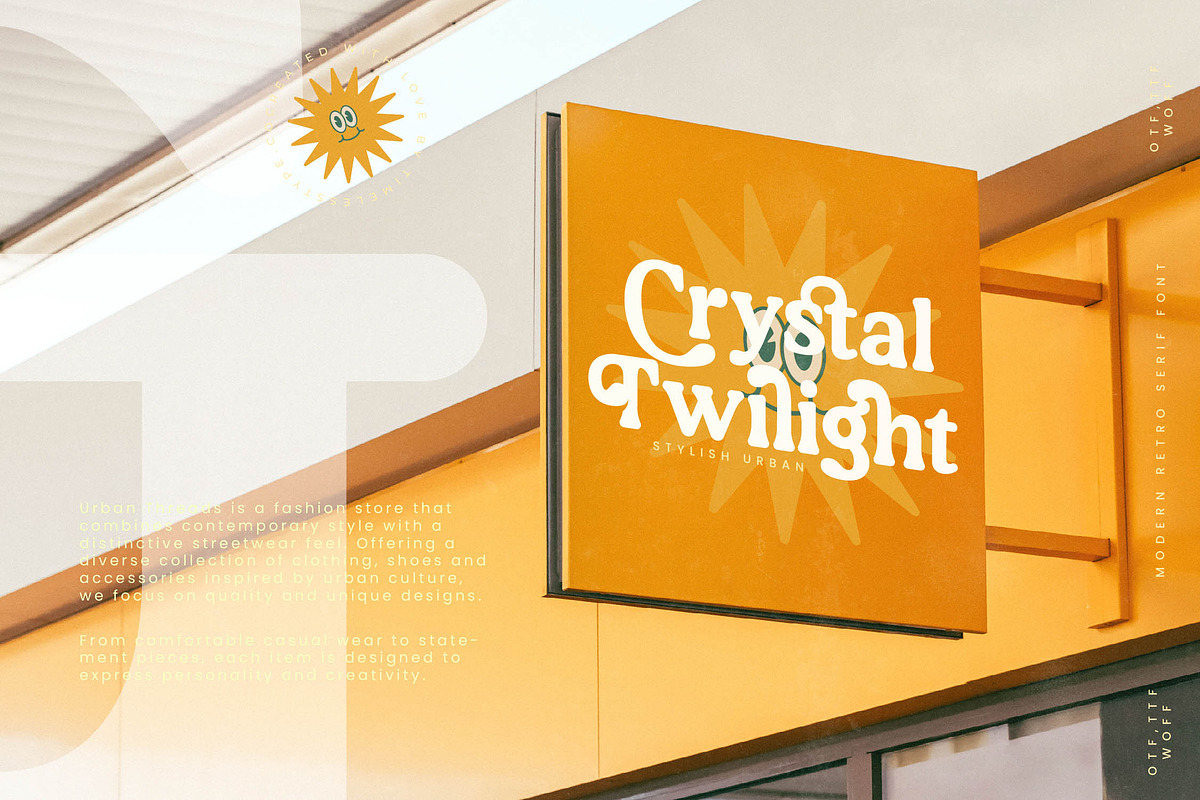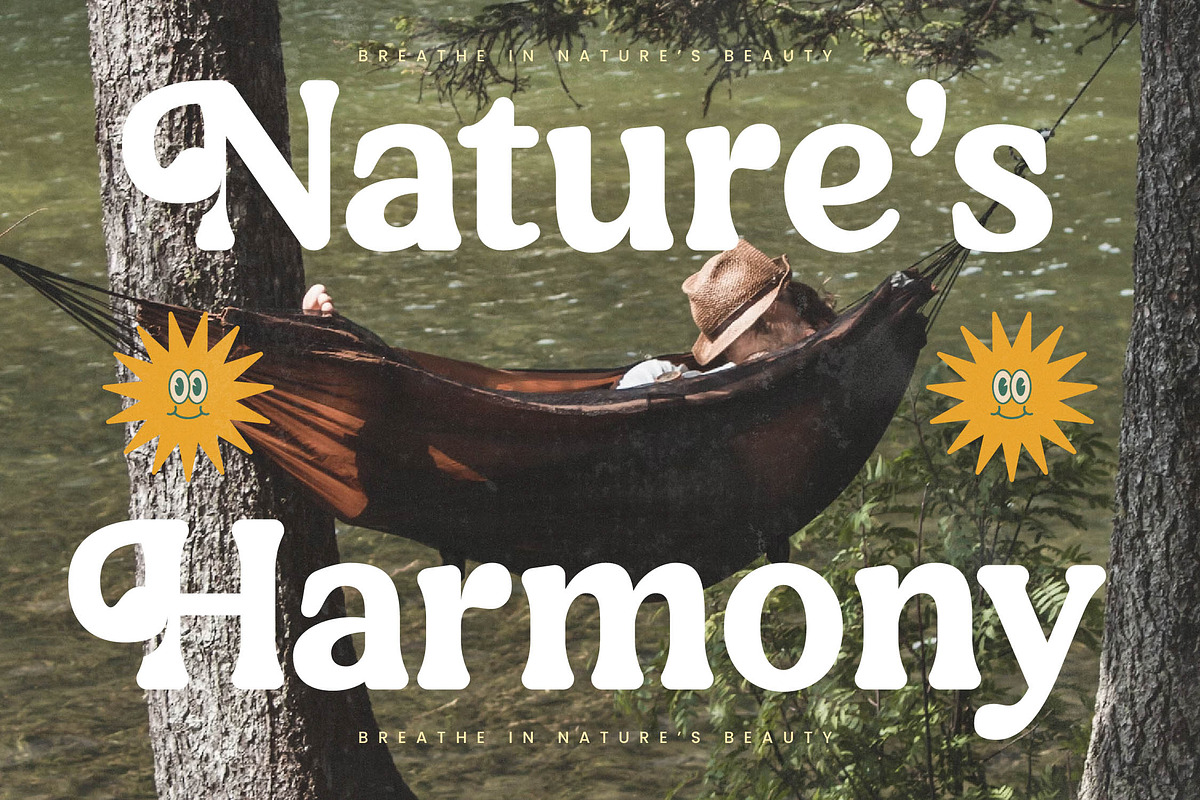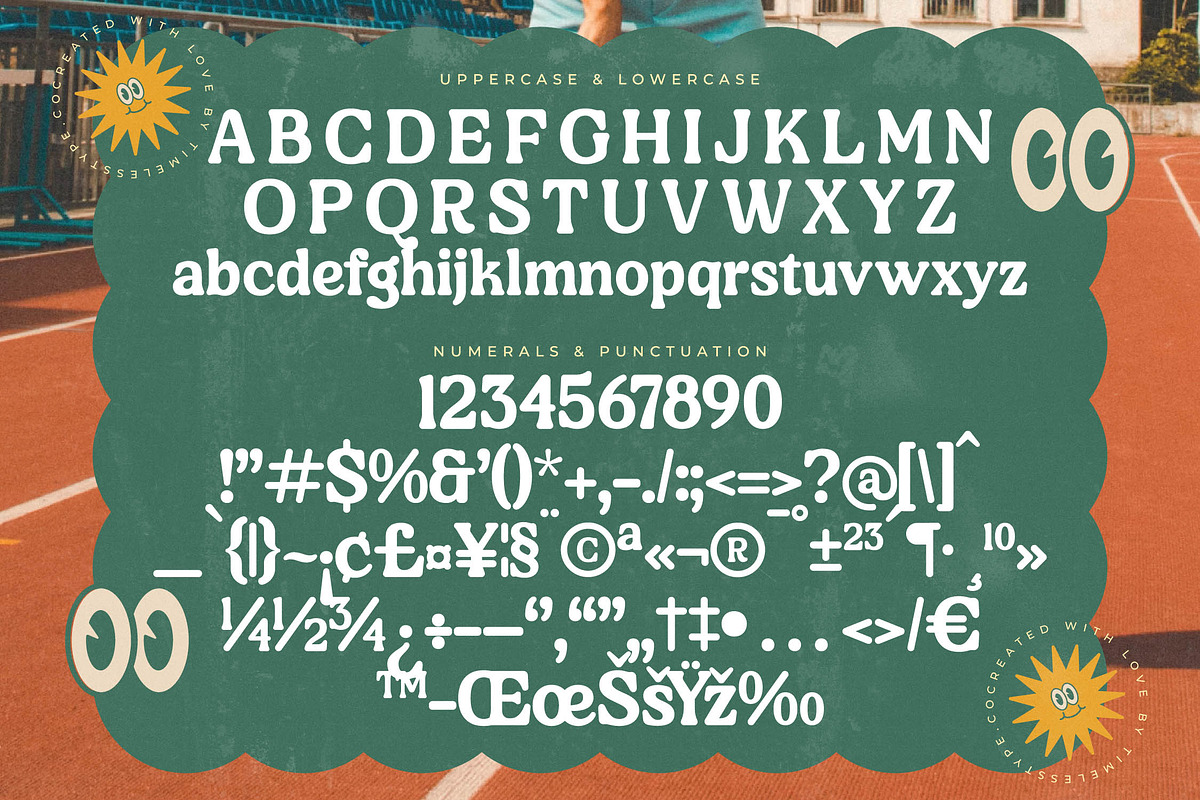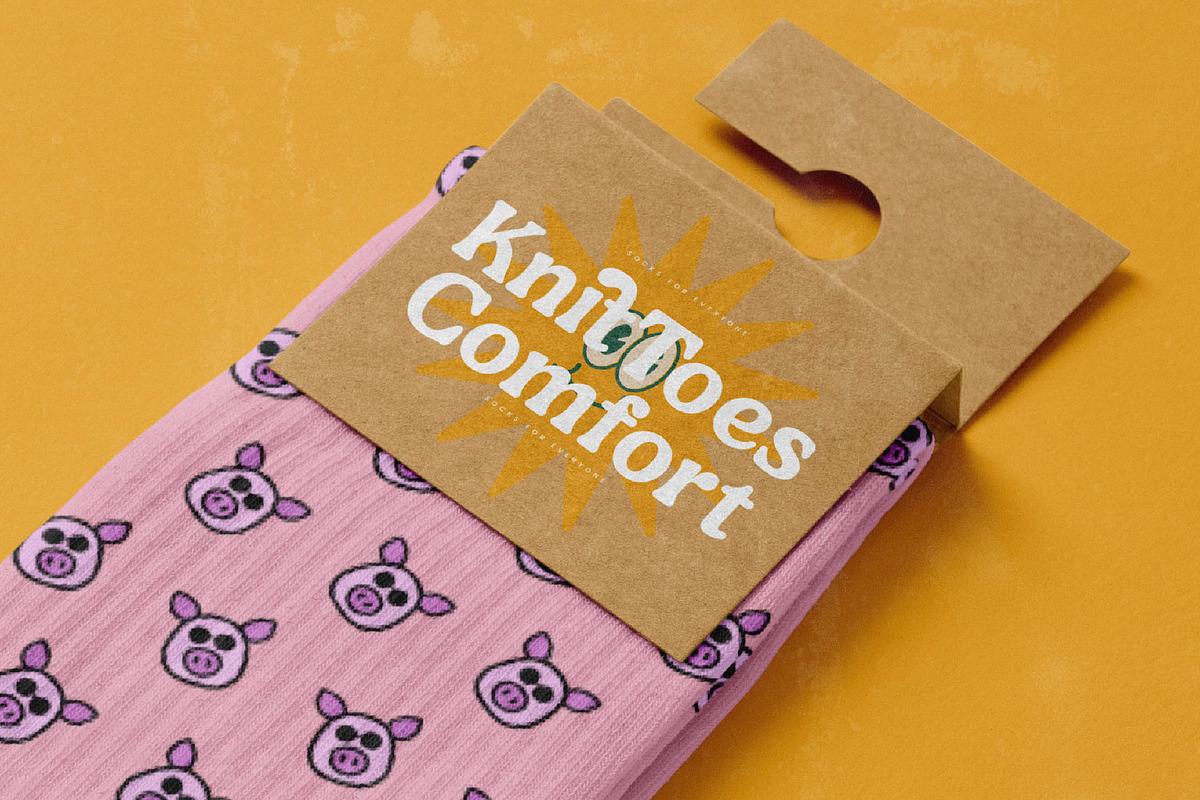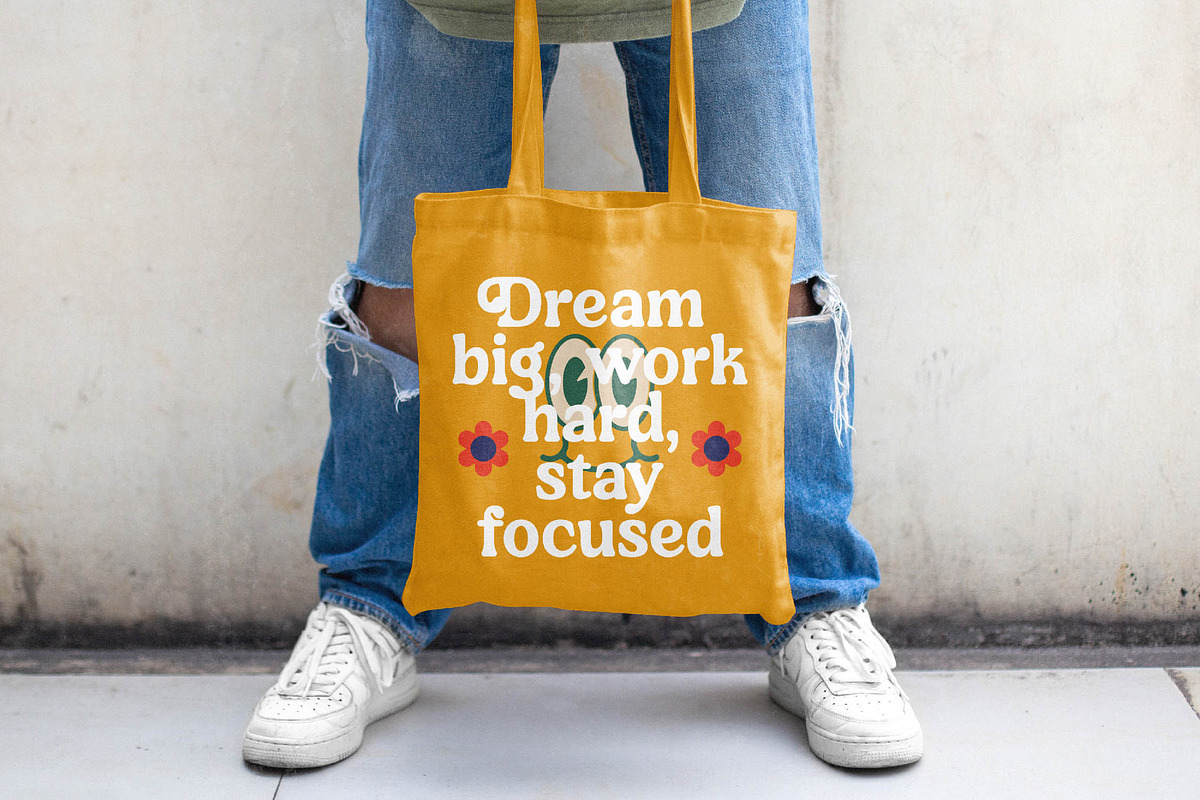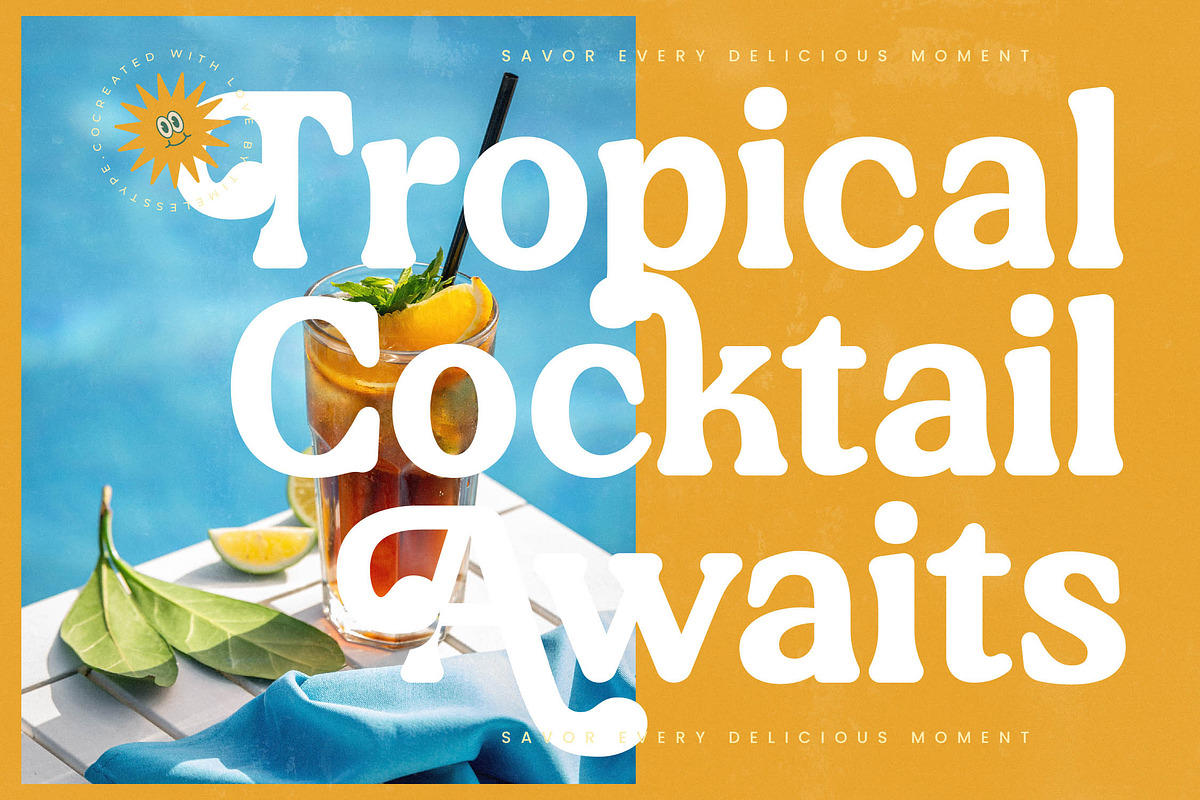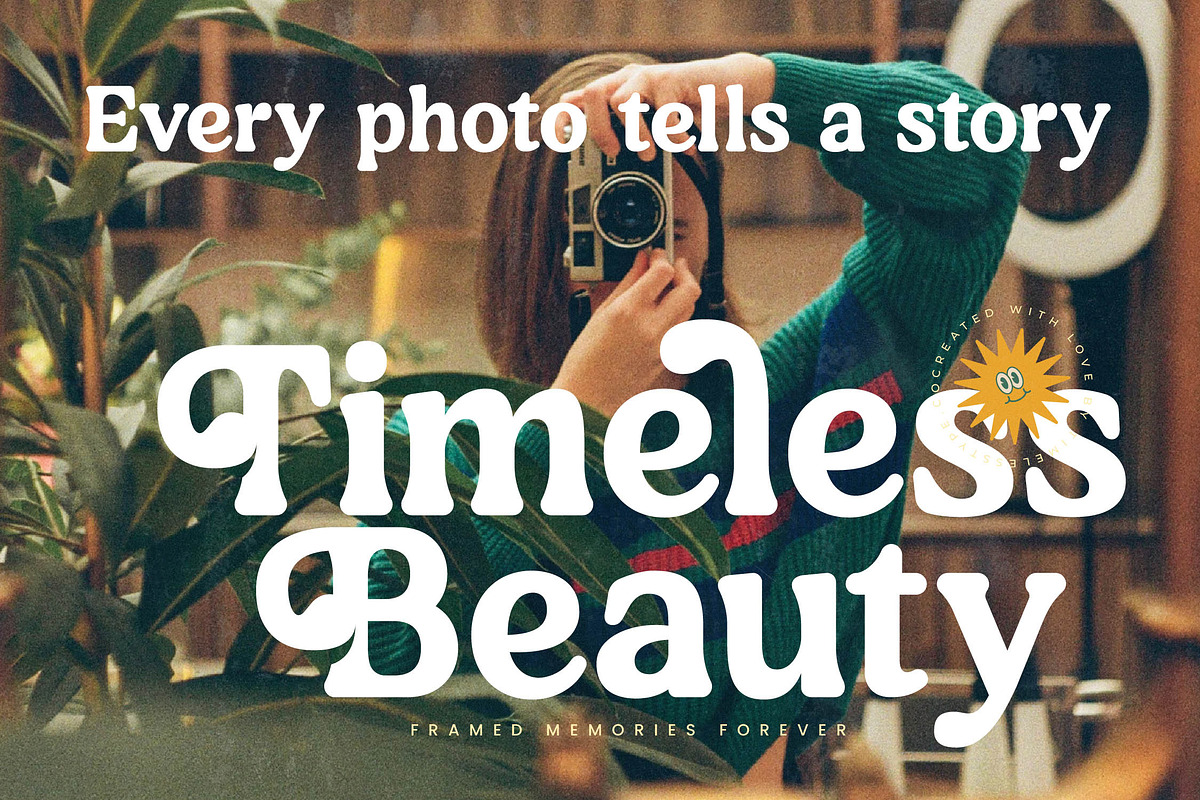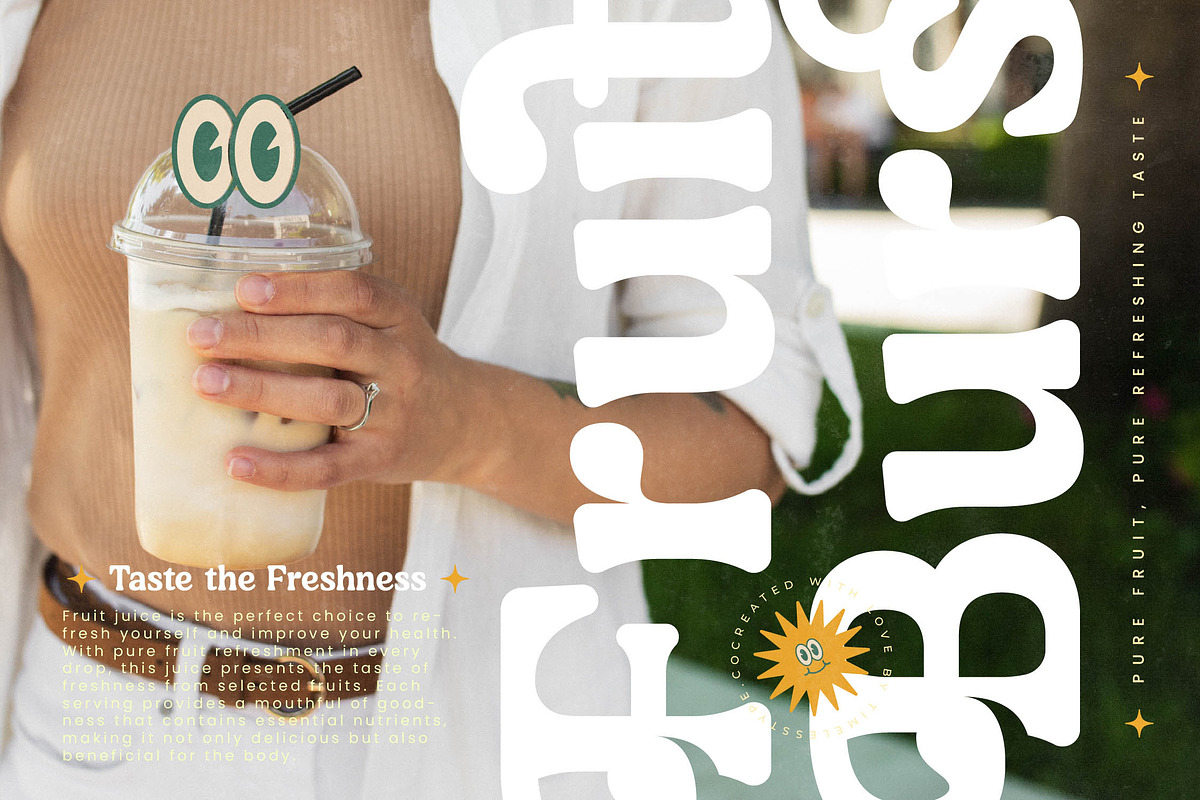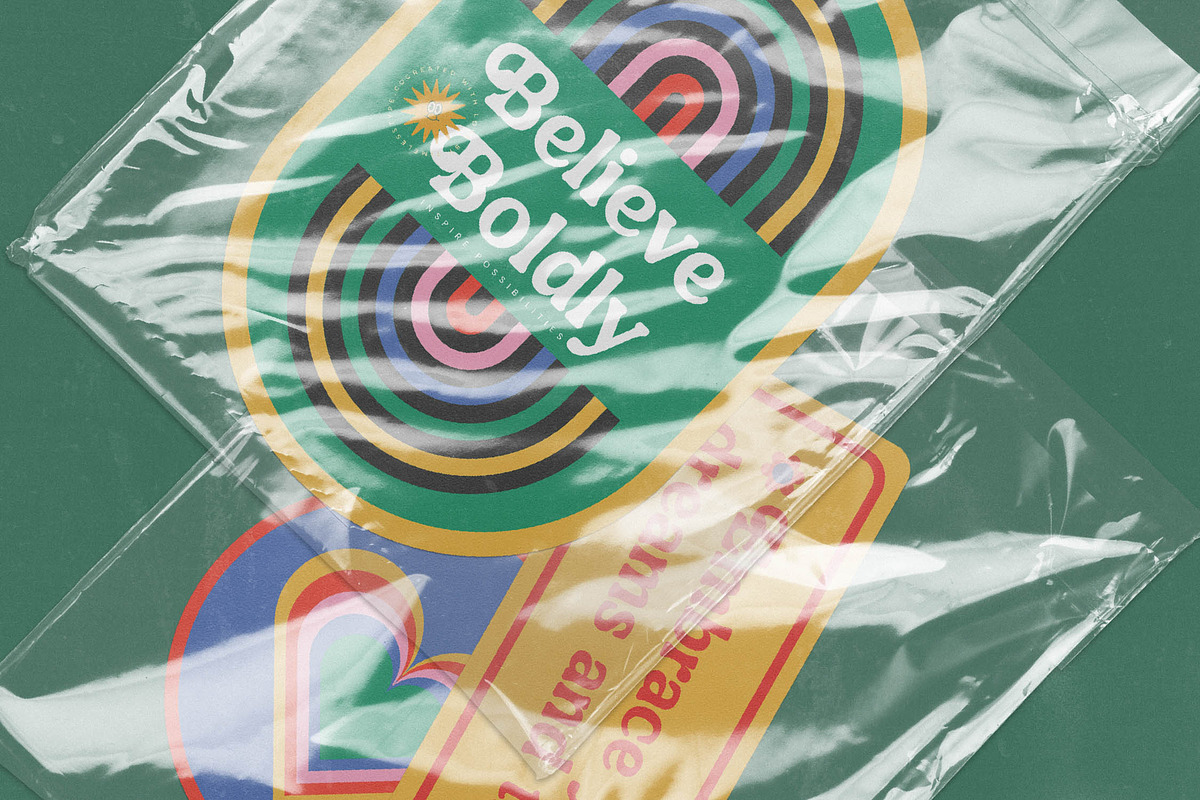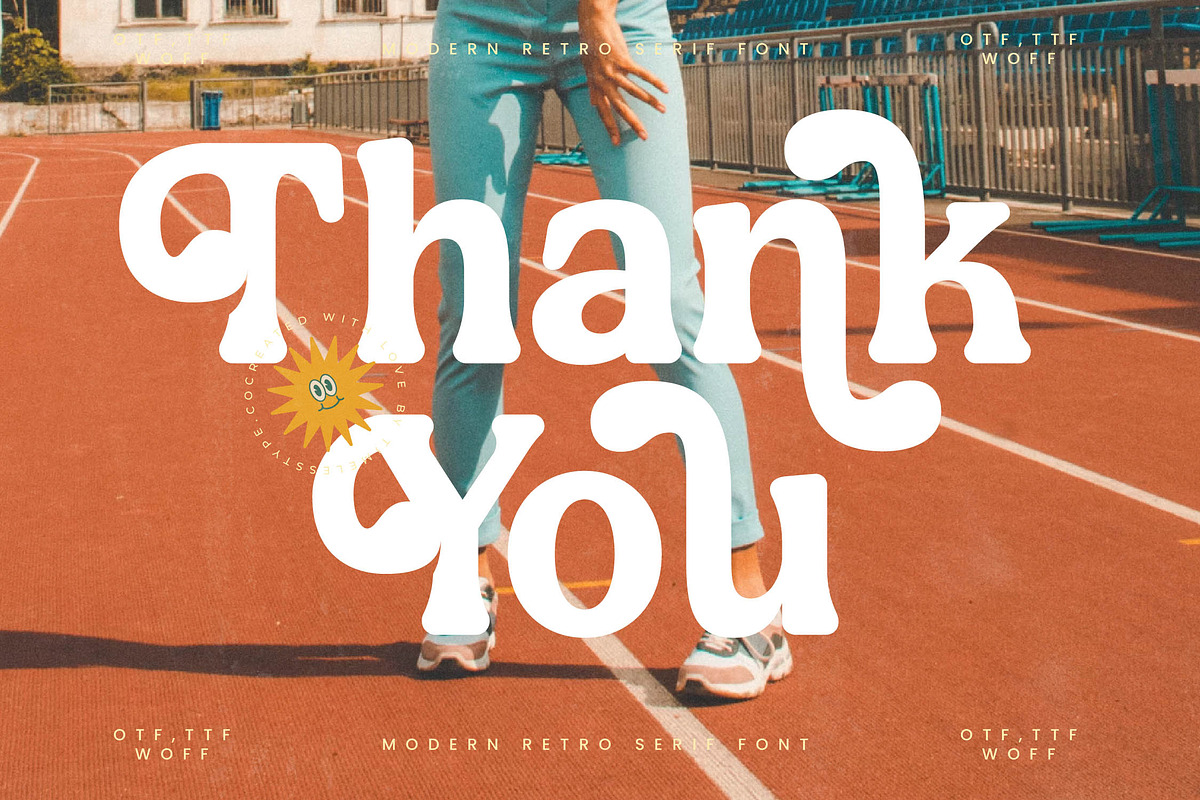
Wildstar Silentos Modern Retro
Step into a world where nostalgia meets high-end fashion with the breathtaking Wildstar Silentos. This typeface captures a perfect balance between vintage warmth and contemporary precision, making it a standout choice for any creative project.
Inspired by the sun-drenched aesthetics of 1970s sports culture and the refined elegance of modern boutiques, the font carries an atmospheric weight that is both rhythmic and bold. It evokes a sense of timeless summer days and premium editorial sophistication in every curve.
This modern serif display is the ultimate tool for achieving a powerful branding impact while maintaining a sense of approachable grace. Through its high-contrast serif anatomy, it functions as a piece of luxury typography that elevates any editorial font collection to professional heights.
Staying ahead of the modern serif trend, this typeface is specifically designed for creators who value character-driven typography. It meets the rising demand for editorial display fonts that break away from tradition to offer something fluid, expressive, and visually captivating.
Whether you are crafting a unique logo design or building a complete visual identity for branding, this font delivers exceptional results. Its versatility makes it the perfect fit for luxury packaging, romantic wedding invitations, high-fashion editorial layouts, and trend-setting fashion campaigns.
Unlock your full creative potential with a suite of over 15 ligatures and 86 alternates that allow for endless customization. The set is rounded out with elegant swashes and comprehensive multilingual support including international characters for a truly global design reach.
- Ligature 15 Alternate 86